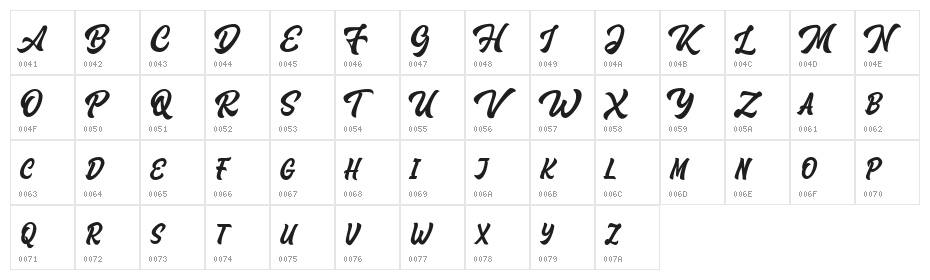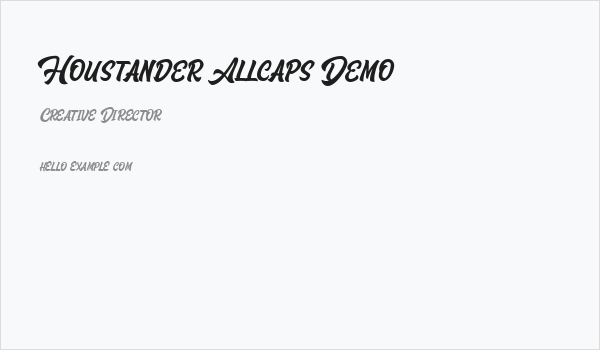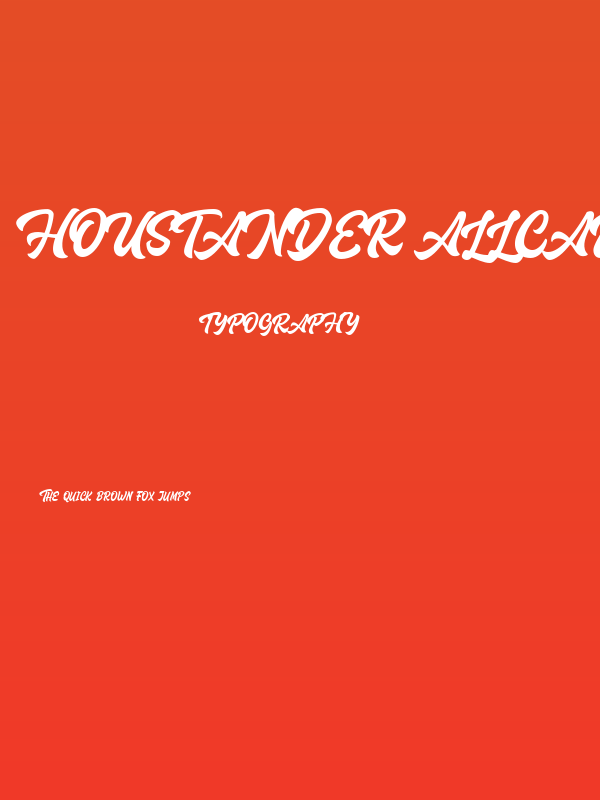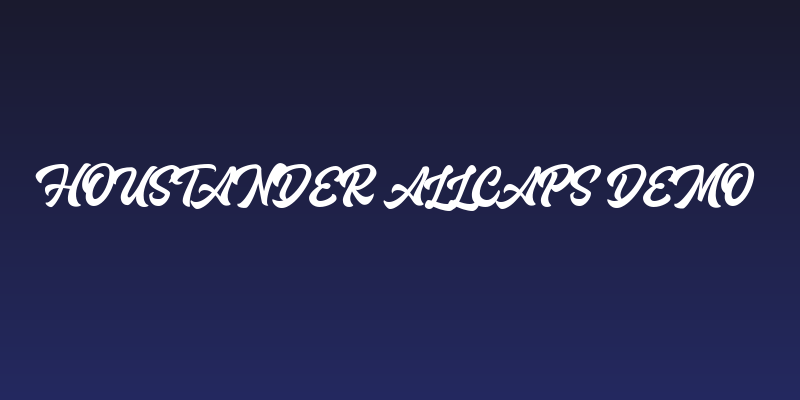
Houstander Allcaps Demo Font
Houstander Allcaps Demo Description
This font features a bold and expressive script style with a strong emphasis on fluidity and movement. The characters are interconnected, creating a seamless flow that mimics natural handwriting. The strokes are thick and consistent, providing a sense of strength and confidence. The overall appearance is dynamic and energetic, making it suitable for designs that require a personal and artistic touch. The uppercase letters are particularly prominent, showcasing a sense of grandeur and elegance. This font is ideal for projects that aim to convey creativity and sophistication.
Use CaseLogos, Headlines, Artistic designs
Proposed ProjectsIdeal for branding, invitations, greeting cards, and artistic posters.